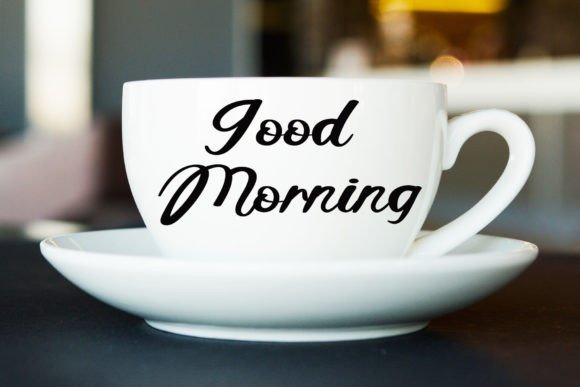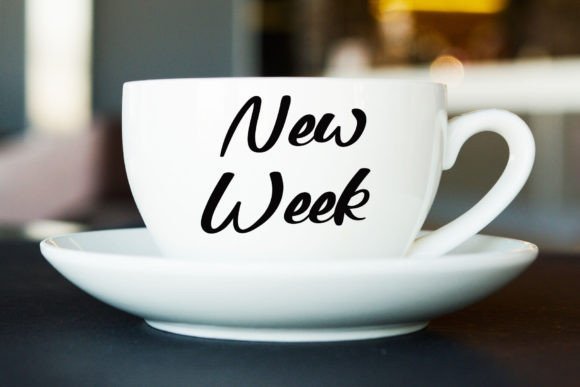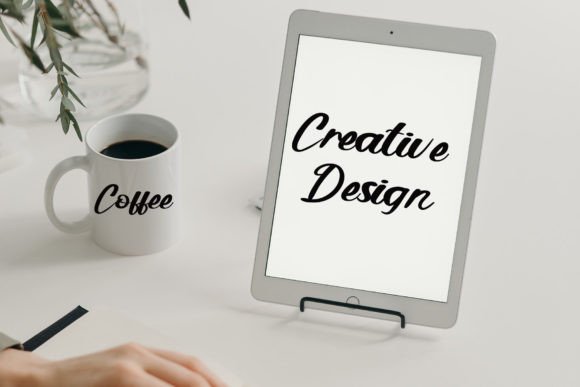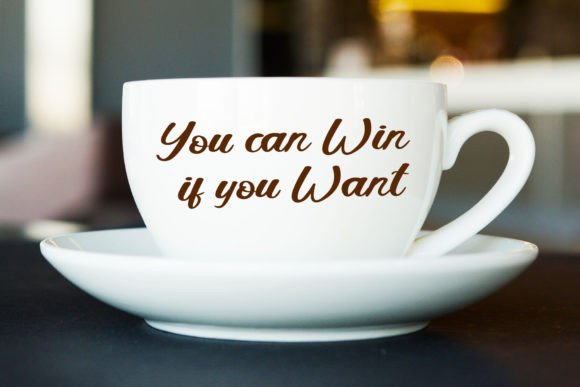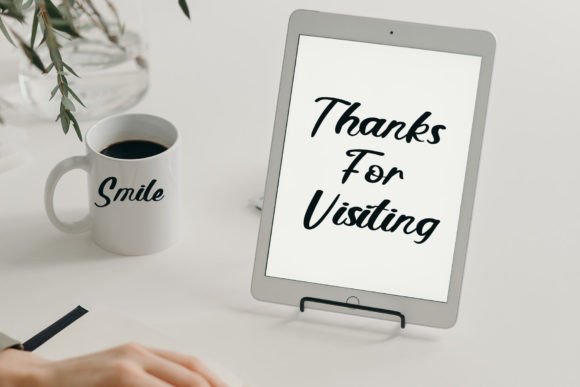
Introducing Happy Monday Font: The Perfect Addition to Your Design Projects
Are you tired of using the same old fonts in your designs? Do you want to add a touch of whimsy and individuality to your projects? Look no further than Happy Monday Font, a cute handwritten font with a fun and quirky personality. In this article, we’ll take a closer look at what makes Happy Monday Font so special and why it’s perfect for designers and crafters looking to add a personal touch to their work.
The Unique Characteristics of Happy Monday Font
Happy Monday Font is a handwritten font that boasts irregular and playful letterforms, creating a sense of whimsy and individuality. Its natural, handwritten style adds a charming and personal feel to any project, making it perfect for designs that require a touch of uniqueness. The font’s quirky personality shines through in its imperfect lettering, giving it a relatable and human feel that resonates with audiences.
What Makes Happy Monday Font So Versatile?
One of the best things about Happy Monday Font is its versatility. Its playful and irregular letterforms make it suitable for a wide range of design projects, from creative crafts to digital designs. Whether you’re creating a greeting card, a poster, or a social media graphic, Happy Monday Font is the perfect choice. Its unique style adds a touch of personality to any design, making it stand out from the crowd.
Happy Monday Font is a must-have for designers and crafters looking to add a personal touch to their work. Its handmade feel makes it perfect for:
- Creative crafts: Use Happy Monday Font to add a personal touch to your handmade crafts, such as journals, planners, and gift tags.
- Digital designs: Add a touch of whimsy to your digital designs, such as social media graphics, blog posts, and email newsletters.
- Stationery: Use Happy Monday Font to create unique and personalized stationery, such as greeting cards, invitations, and letters.
Why Choose Happy Monday Font?
With so many fonts available, why choose Happy Monday Font? Here are just a few reasons:
- Unique style: Happy Monday Font has a one-of-a-kind style that adds a touch of personality to any design.
- Handwritten feel: Its natural, handwritten style gives designs a charming and personal feel.
- Versatility: Happy Monday Font is suitable for a wide range of design projects, from creative crafts to digital designs.
Tips for Using Happy Monday Font
Here are a few tips for getting the most out of Happy Monday Font:
- Use it sparingly: Happy Monday Font is best used sparingly to add a touch of personality to your designs. Use it for headings or titles to create a focal point.
- Pair it with other fonts: Happy Monday Font pairs well with other fonts, such as sans-serif fonts or script fonts. Experiment with different combinations to find the perfect look.
- Experiment with colors: Happy Monday Font looks great in a variety of colors. Experiment with different colors to find the perfect shade for your design.
In conclusion, Happy Monday Font is a unique and versatile font that’s perfect for designers and crafters looking to add a touch of personality to their work. Its handwritten feel and quirky personality make it suitable for a wide range of design projects, from creative crafts to digital designs. With its irregular and playful letterforms, Happy Monday Font is sure to add a touch of whimsy and individuality to any project. So why not give it a try and see the difference it can make?